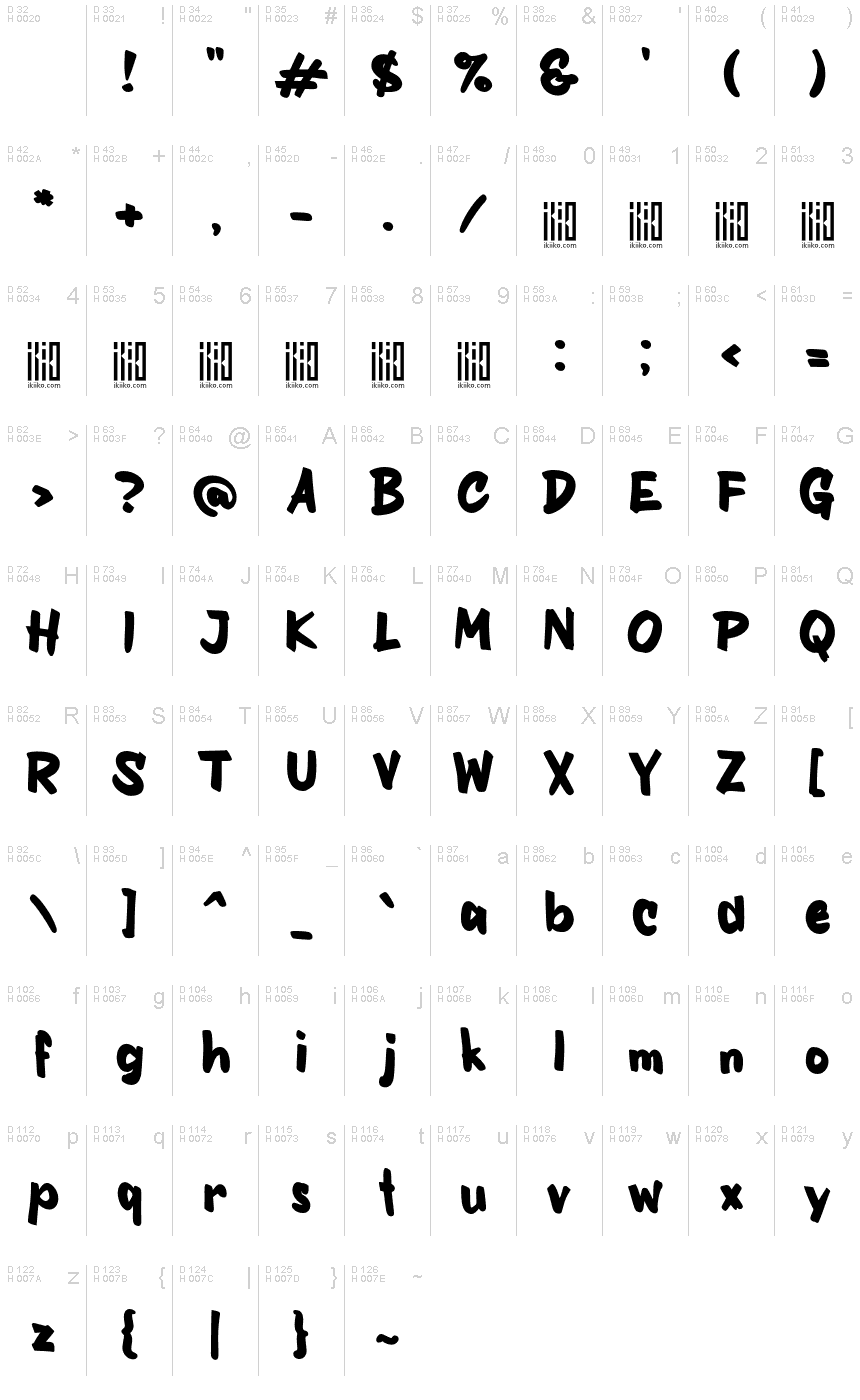
Bare Knuckles, a dynamic creation by Ikiiko Type, is a bold brush font that exudes raw energy and artistic flair. With its heavy weight and vigorous strokes, this typeface captures the essence of hand-painted signage and street art aesthetics. The expressive quality of Bare Knuckles makes it an excellent choice for projects that require a touch of rebellion or a strong visual impact.
The robust character of the font, coupled with its textured brush strokes, gives it an authentic look that can instantly draw attention to any design. Its aesthetic appeal lies in the perfect balance between roughness and readability, making it versatile for both digital landscapes and printed media.
Ideal for branding, poster design, apparel graphics, and music industry collateral, Bare Knuckles stands out in applications where a punchy statement is desired. Embrace the distinct style of this typeface to inject your creative projects with vigor and personality.